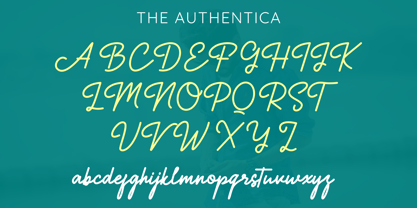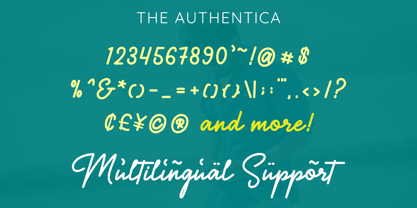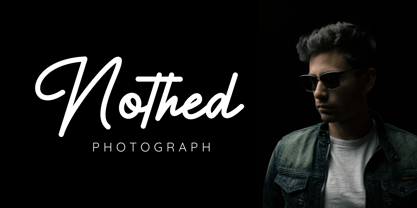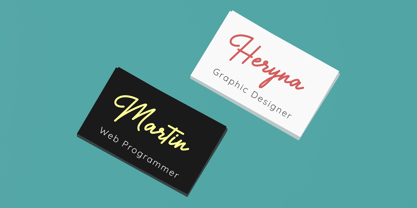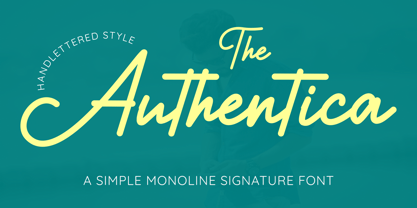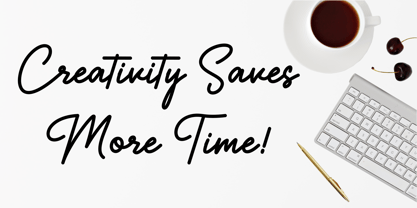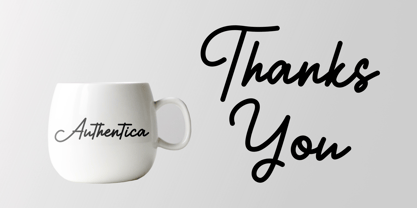
The Authentica
by Dilbadil
The The Authentica Font Family was designed by Abdillah Abdi and published by Dilbadil. The Authentica contains 1 styles. More about this family
I'm thrilled to present my proudly creation, The Authentica, a monoline font crafted with dedication and passion. This stylish typeface combines simplicity and elegance, delivering a signature look that enhances a wide range of design projects.
With its clean, smooth lines and balanced flow, The Authentica embodies a modern yet timeless aesthetic. The font's signature style makes it perfect for adding a personal touch to your creative work, whether you're designing quotes, crafting beautiful photography captions, or producing eye-catching invitation cards.
Versatile and adaptable, The Authentica shines in both digital and print formats. It works wonderfully on apparel designs, stickers, logos, and branding materials. Its easy-to-read and visually appealing style ensures that your message stands out with clarity and charm.
Let The Authentica add a touch of simplicity and sophistication to your next design project!